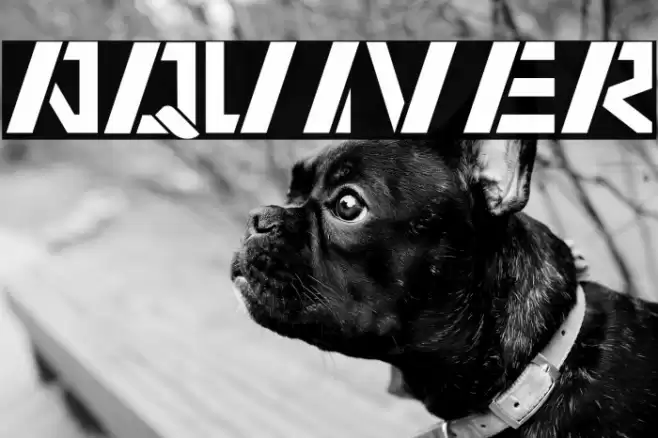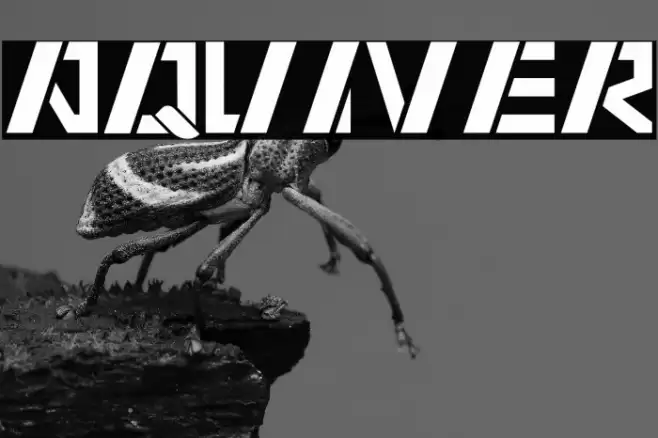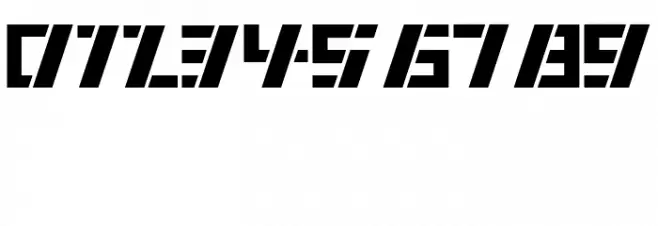
AQUIVER Font
AQUIVER Description
This font features a bold, angular design with a futuristic and geometric aesthetic. The characters are constructed with sharp, diagonal cuts and solid, block-like forms, creating a sense of movement and energy. The uppercase and lowercase letters maintain a consistent style, with the lowercase appearing as smaller versions of the uppercase. Numbers and special characters follow the same design principles, ensuring uniformity across all glyphs. The font's unique style makes it stand out, ideal for projects that require a modern and edgy look.
A bold, angular font with a futuristic and geometric style from Regular fonts.
- Proposed Projects: Ideal for sci-fi themed designs, video game graphics, posters, and branding that seeks a modern, edgy appearance.
- Overall Style: Futuristic, Geometric